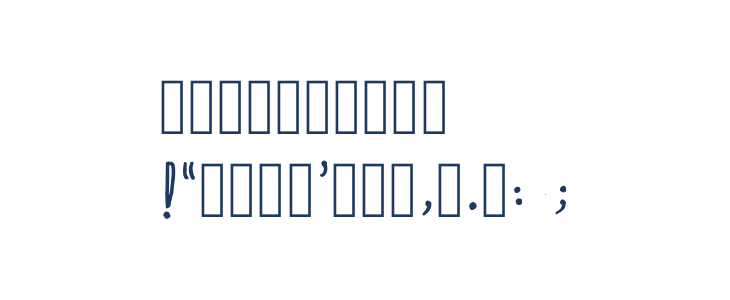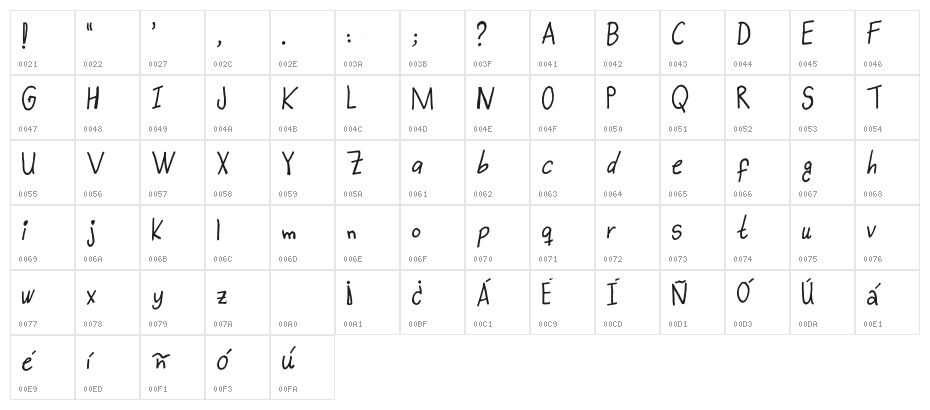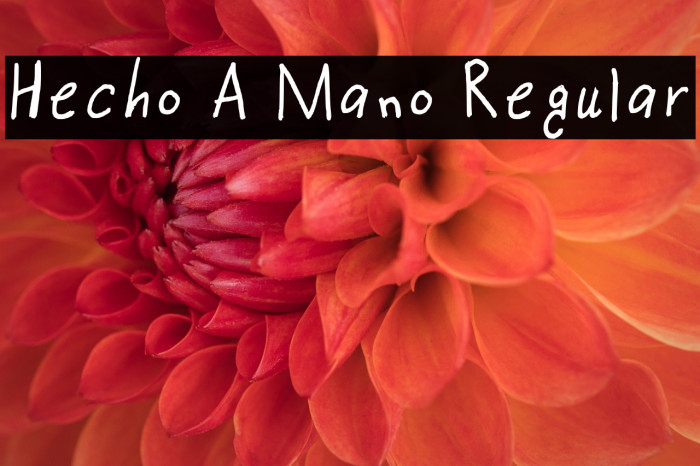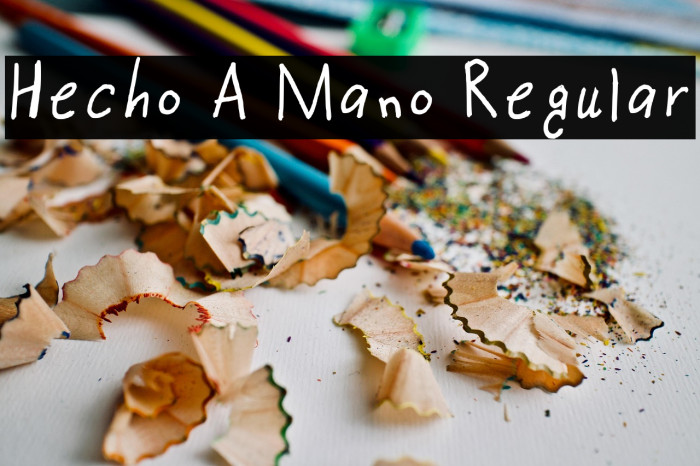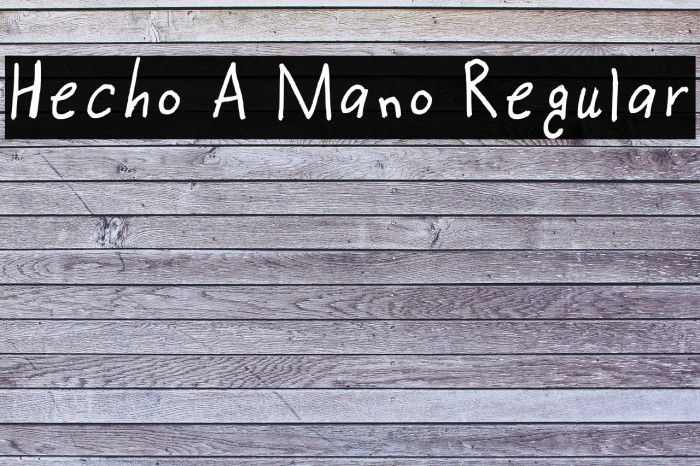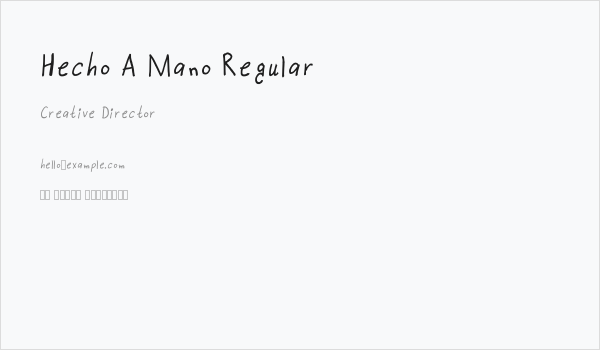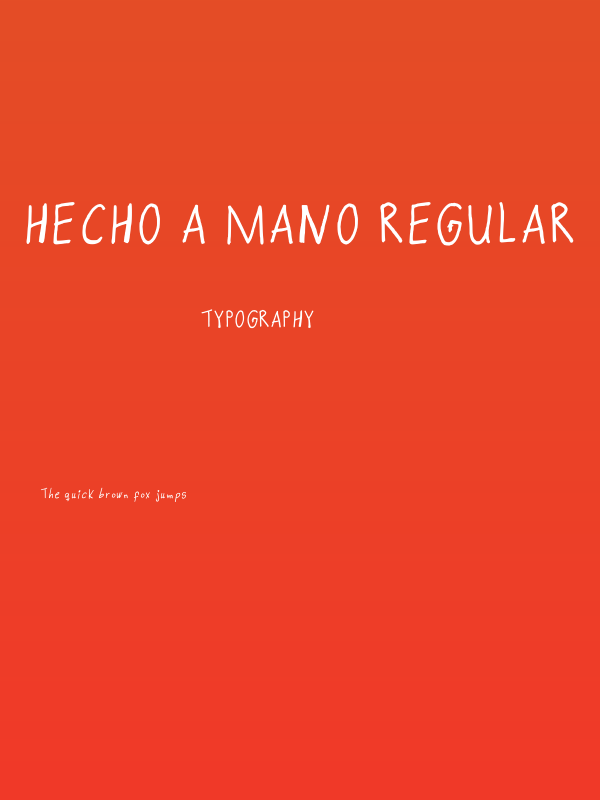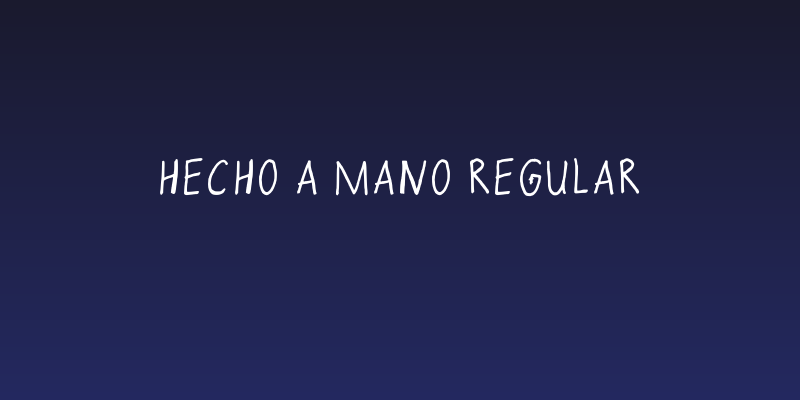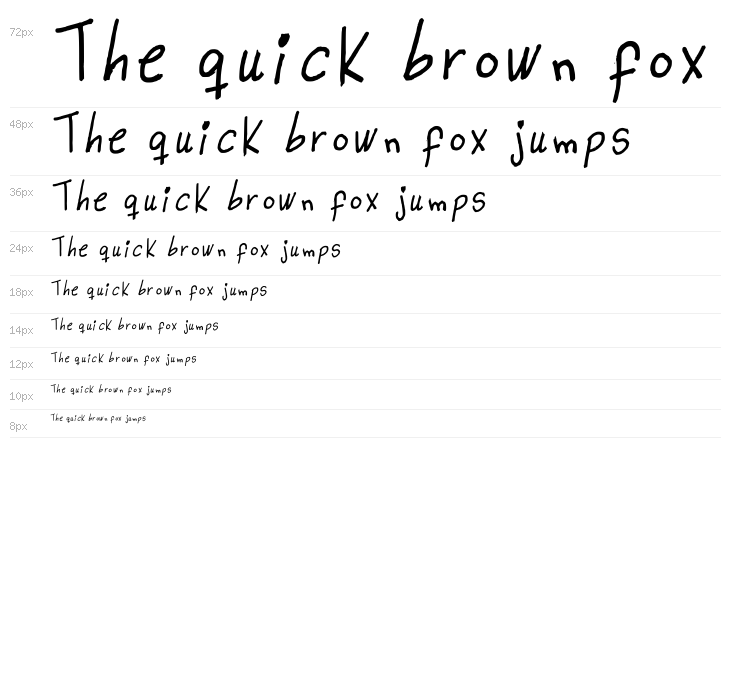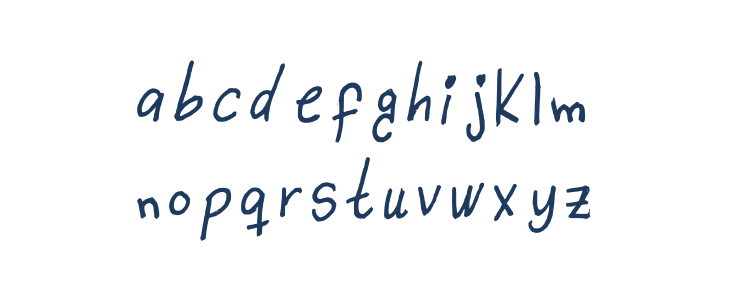
Hecho A Mano Regular Font
Hecho A Mano Regular Description
This font exudes a handcrafted, organic feel, reminiscent of casual handwriting. The letters are slightly uneven, adding a personal and informal touch. The strokes are consistent in width, giving it a uniform appearance despite its playful nature. This font is ideal for projects that require a human touch, such as personal invitations, greeting cards, or any design that aims to convey warmth and approachability. The characters are well-spaced, ensuring readability while maintaining its unique style. Its simplicity and charm make it versatile for various creative applications.
| Proposed Projects | Ideal for personal invitations, greeting cards, and designs needing a warm, human touch. |